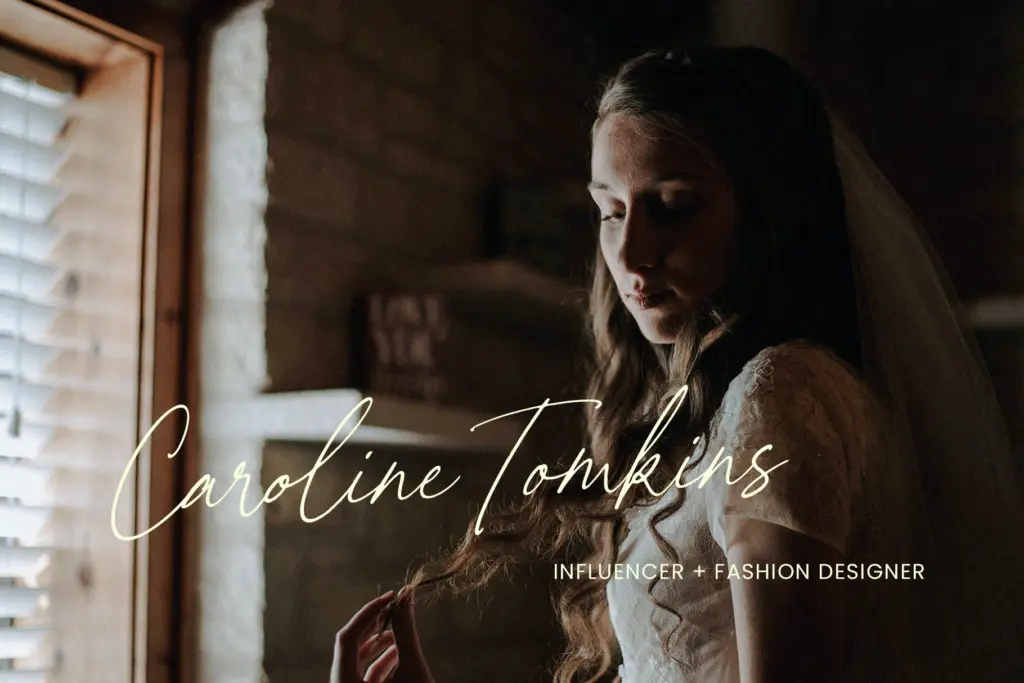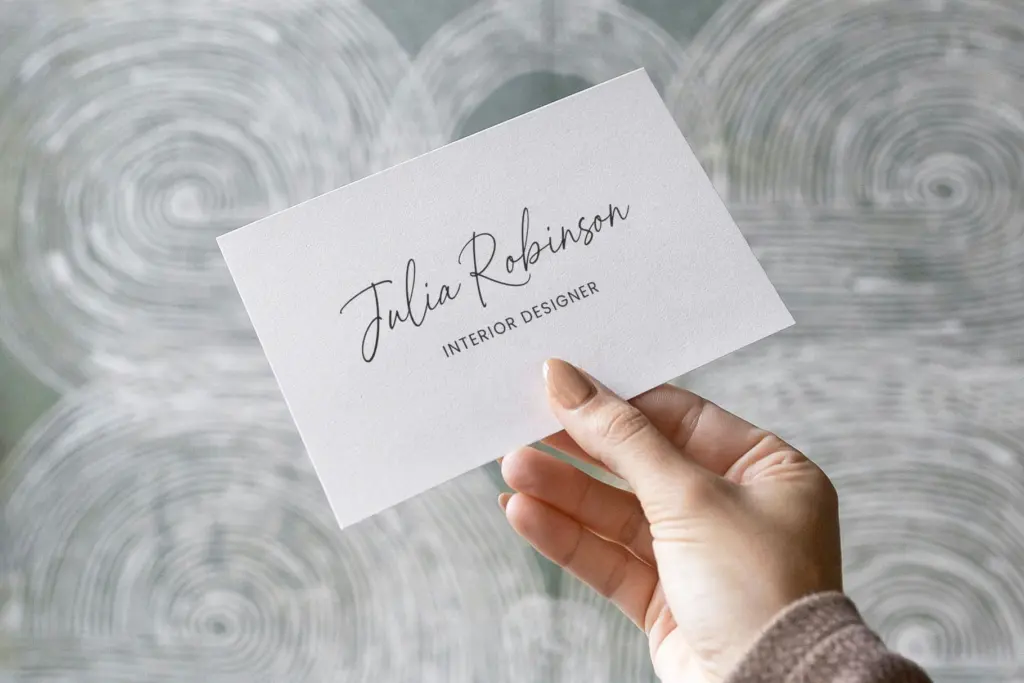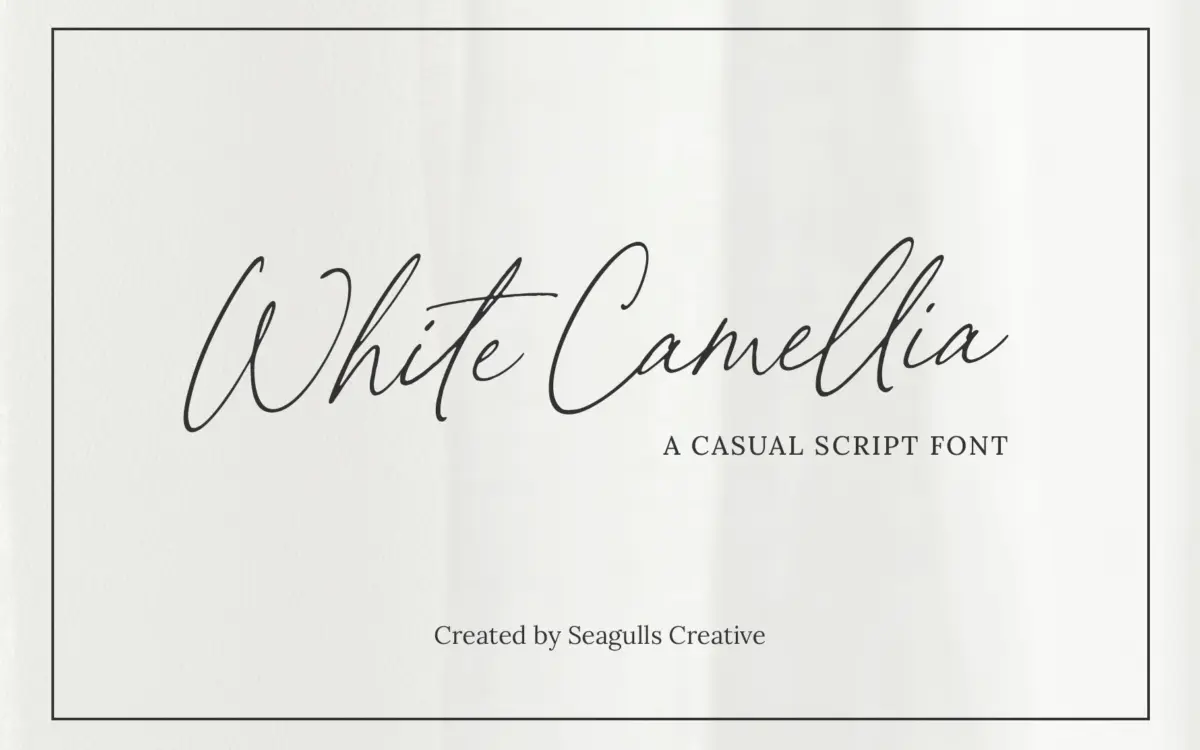
White Camellia sits in the crowded field of casual calligraphy scripts built for wedding stationery, but it leans toward the looser, more hand-drawn end of that spectrum rather than the tight formal-copperplate look. Strokes have a slight wobble to them, the kind that reads as a brush or a soft marker rather than a pointed pen. Letters connect at varying angles instead of a single consistent slant, which gives it a handwritten, unrehearsed quality rather than the engineered flow of a font built purely from a stroke-repeat system.
The font comes as two styles, Regular and Slant, which is a modest but useful distinction — it is not a full family with weights, just an upright and an angled version of the same hand. That is enough to break up monotony in a layout without forcing a designer to source a second typeface for contrast.
The set includes letters, numbers, symbols, punctuation, and ligatures, along with beginning and ending swash characters — the flourishes designed to open or close a word gracefully rather than sitting mid-sentence. These terminal forms are really where a script font’s personality either lands or falls apart, and here they do the job: the entry and exit strokes taper cleanly and don’t compete with the letters around them.
Ligatures are present but should be treated as a finishing tool, not a default. Scripts like this tend to look best when a designer manually applies a handful of ligatures and swashes to specific words — the client’s name,
- Beginning and ending swashes taper cleanly and read as intentional rather than decorative clutter
- Regular and Slant give layout variety without needing a second typeface
- Casual, hand-drawn stroke quality avoids the stiffness of overly systematic scripts
- Not built for anything beyond short lines — paragraph settings will fatigue quickly
- Sits close to many similar wedding-script releases without a distinct structural hook
White Camellia is a competent, romantic casual script that does what wedding stationery designers ask of it, without pushing the genre forward. The two-style setup and swash set are genuinely useful, but the category is saturated and this doesn't distinguish itself sharply from its neighbours.